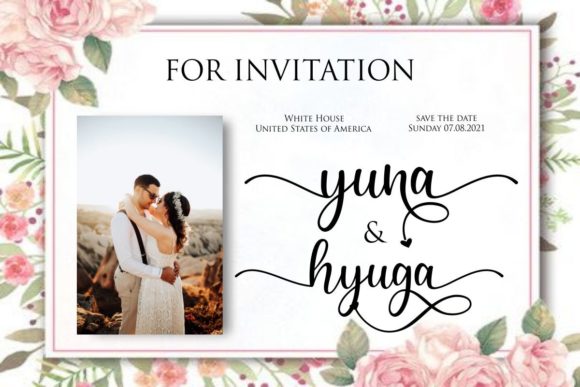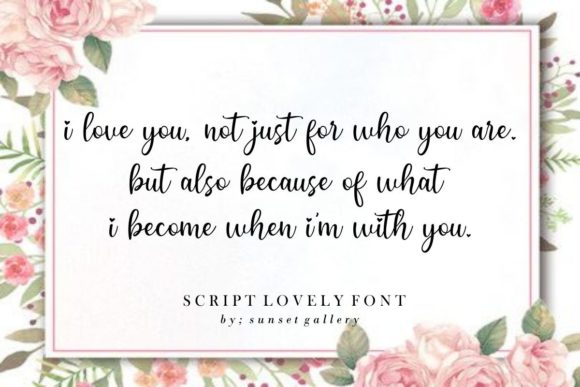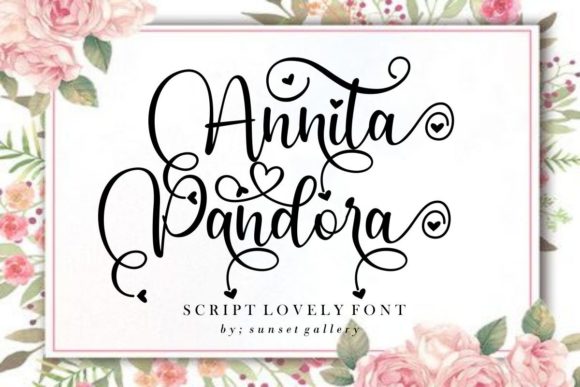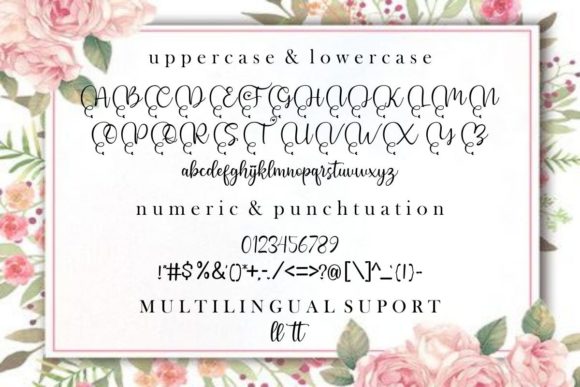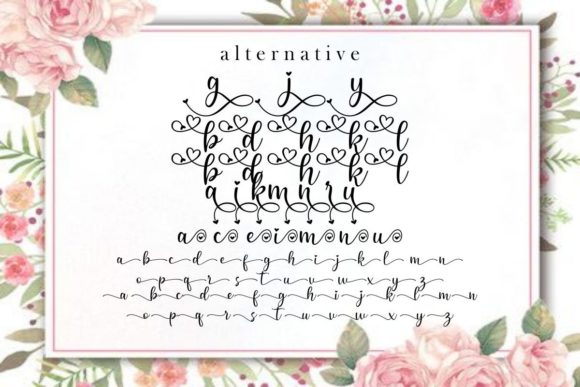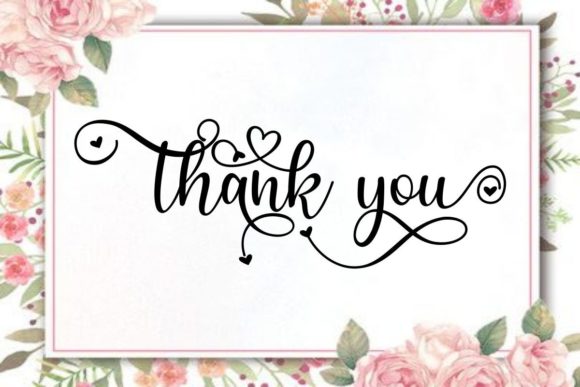
Introduction to Romantic Fantasy Font
Romantic Fantasy is a dazzling, slim and highly detailed script font.
This font is PUA encoded which means you can access all of the amazing glyphs and ligatures with ease Fall in love with its incredibly versatile style and use it to create spectacular designs.
Key Features of Romantic Fantasy Font
Romantic Fantasy Font offers exceptional quality and versatility, making it a valuable addition to your design toolkit. Whether you’re creating for personal projects or commercial use, Romantic Fantasy Font delivers professional results.